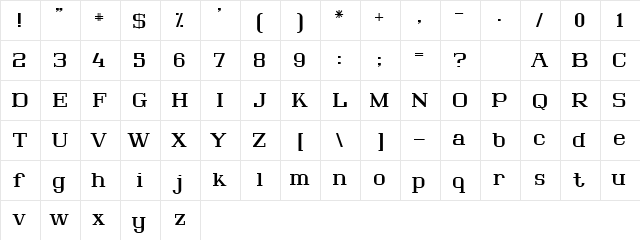
Lousitania Regular
Lousitania Regular Font Preview
Lousitania Regular
Design Context for Lousitania Typeface
Lousitania offers clean, dependable letterforms without strong stylistic allegiance, making it a practical choice for designers who need flexibility.
Pro Tip: Pair Lousitania with a font of contrasting weight or personality to build a more expressive typographic hierarchy.